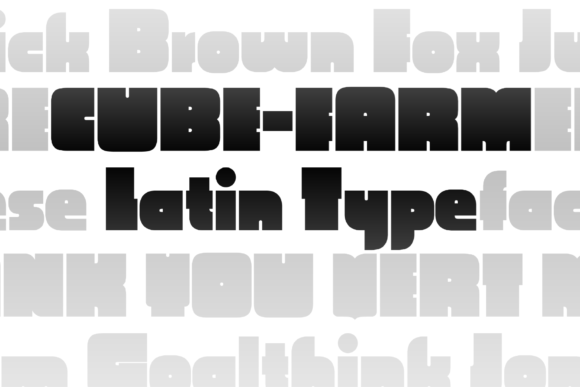
Introducing Cube Farm Font, a bold and robust display font crafted for those with a passion for the rural! Designed with utmost precision by YTY Digital TypeFoundry, this font is a testament to their imaginative and skilled craftsmanship.
Prepare to be mesmerized as you witness the sturdy and imposing characters of Cube Farm Font. Each letter is meticulously engineered with thick strokes, sharp edges, and rustic appeal, embodying the essence of farm life. Let its bold presence captivate your audience and leave an indelible impression.
Imagine the impact of your farm logo, website, or branding materials when adorned with this extraordinary font. Its rugged and wild nature will breathe life into your creations, evoking images of golden fields, majestic tractors, and the tireless hands that till the land.
Unleash your inner storyteller with Cube Farm Font and watch your words transform into a visual feast. Let its bold strokes evoke emotion, convey strength, and plant the seeds of inspiration in the minds of those who behold it.
Elevate your visual identity to new heights, let your artistic vision blossom, and create a lasting connection with your audience. Cube Farm Font is the perfect companion for those passionate about agriculture, nature, and the beauty of rural life.
Welcome to the farm, where the letters dance with character, and every word has a story to tell. Let Cube Farm Font guide you on a journey of visual enchantment and leave your mark on the world, one design at a time.
Embrace the allure of Cube Farm Font and watch your vision flourish!